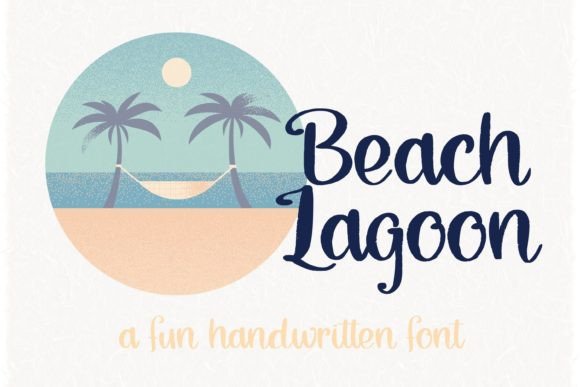
Introducing Beach Lagoon Font - the epitome of style and sophistication. This exquisite and modern handwritten font is designed to captivate and inspire. With its clean lines and sharp angles, it exudes contemporary elegance, while its fluid curves add a touch of femininity.
Searching for the best font for handwriting? Look no further. Beach Lagoon Font is the perfect choice for those who crave uniqueness and creativity. Its artistic strokes will make your words come alive, leaving a lasting impression on any project.
Whether you're in the fashion industry or simply want to elevate your brand's image, Beach Lagoon Font is an absolute game-changer. Its versatility knows no bounds - use it to create stunning fashion branding materials, design eye-catching blog headers, or craft engaging social media graphics.
When it comes to making a statement, Beach Lagoon Font doesn't disappoint. Its captivating vibe draws attention and sparks curiosity, leaving your audience wanting more. Stand out from the crowd and leave a lasting impression with this font that speaks volumes.
Created by designingdigitals, a renowned name in the world of design, Beach Lagoon Font is the result of meticulous craftsmanship and attention to detail. Each letter is a work of art, carefully crafted to effortlessly blend style and legibility.